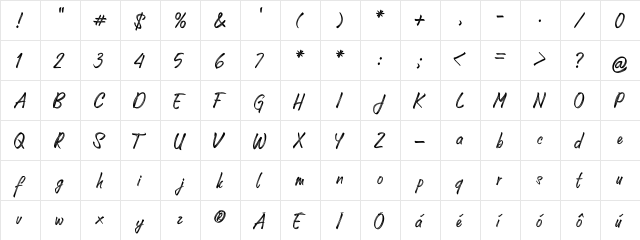
Unforgotten More Regular
| Foundry | Unatype |
| Designer | Onne Hermaone |
Design Context for Unforgotten More Typeface
Unforgotten More takes a measured approach to typography — its balanced proportions and neutral character make it a reliable workhorse for both digital and print work.